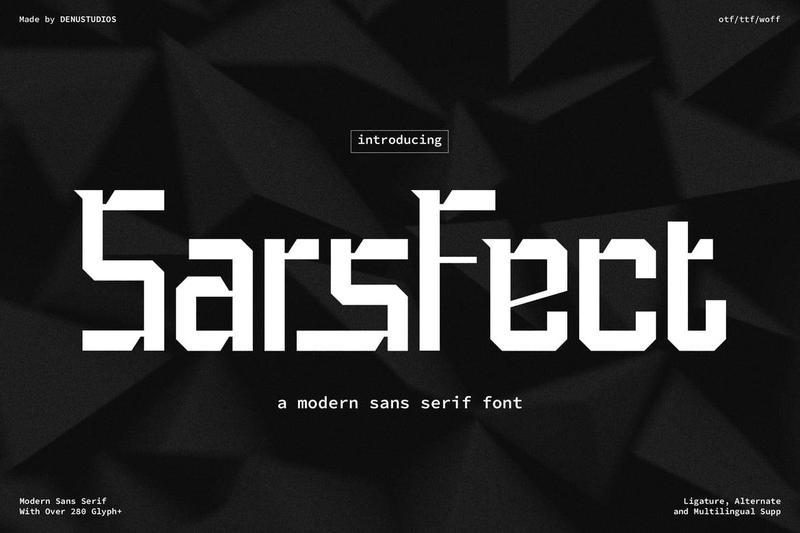
The Sars Fect font is designed to deliver a strong, versatile visual character, balancing aesthetics and readability. Every detail is carefully crafted to ensure a clear, consistent, and visually appealing result across a wide range of design needs.
With well-structured letter proportions and support for features such as alternate characters and ligatures, this font allows for greater creative exploration. The final result is dynamic, distinctive, and professional, making it adaptable to a range of design styles.
Alternate and Ligature
Fonts include multilingual support